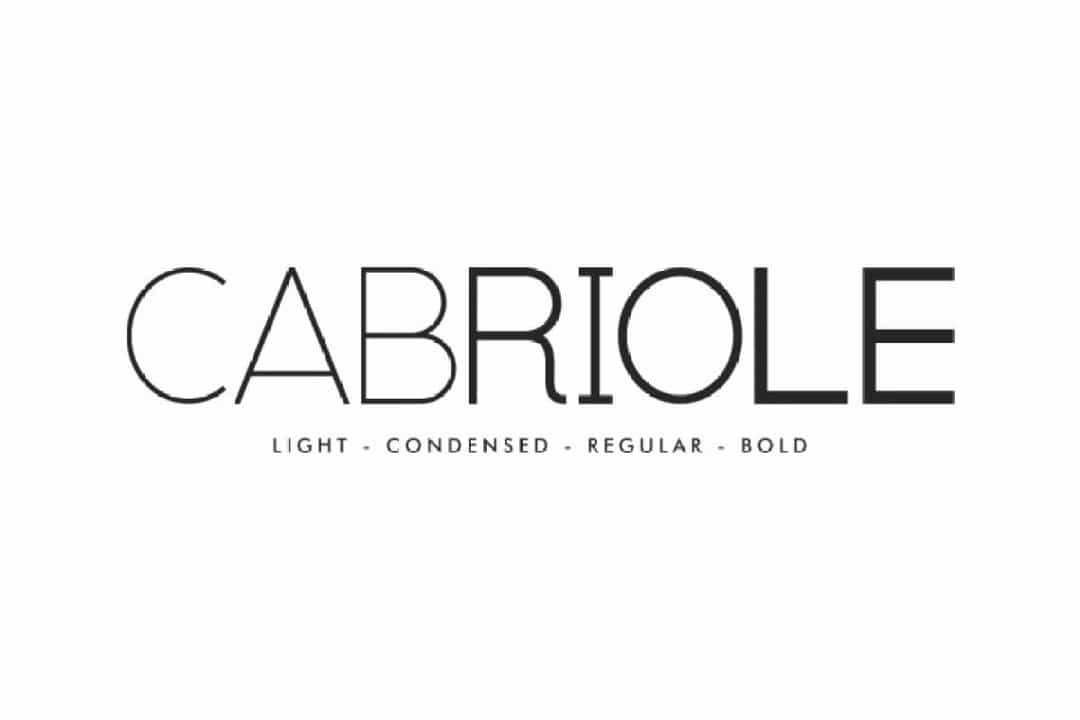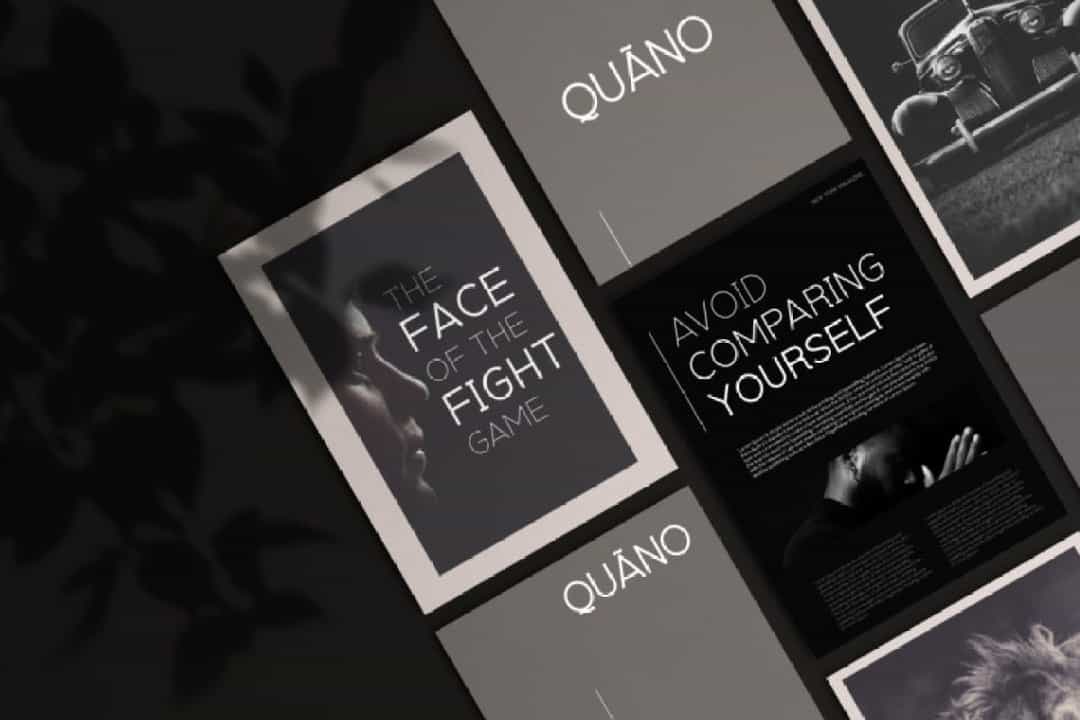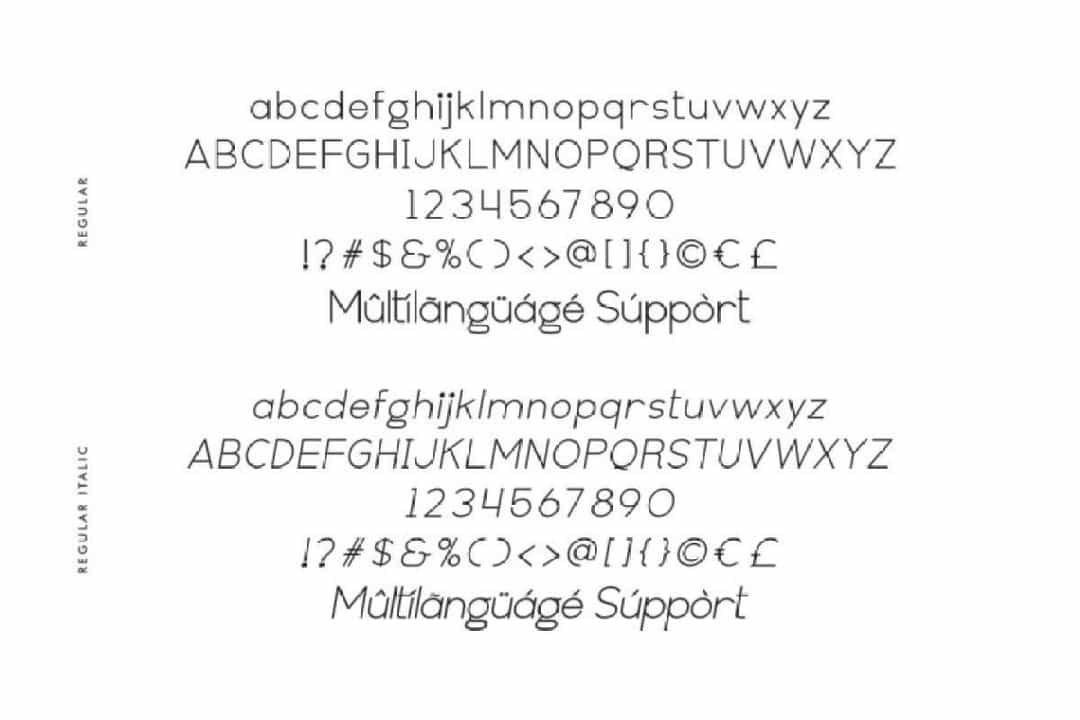
NihStudio created Cabriole in 2021 as an elegant sans serif font that features eight beautiful styles for use across various projects requiring extended license. You may use this font for branding, logo stationery, business cards, stationery Flyers, brochures etc.